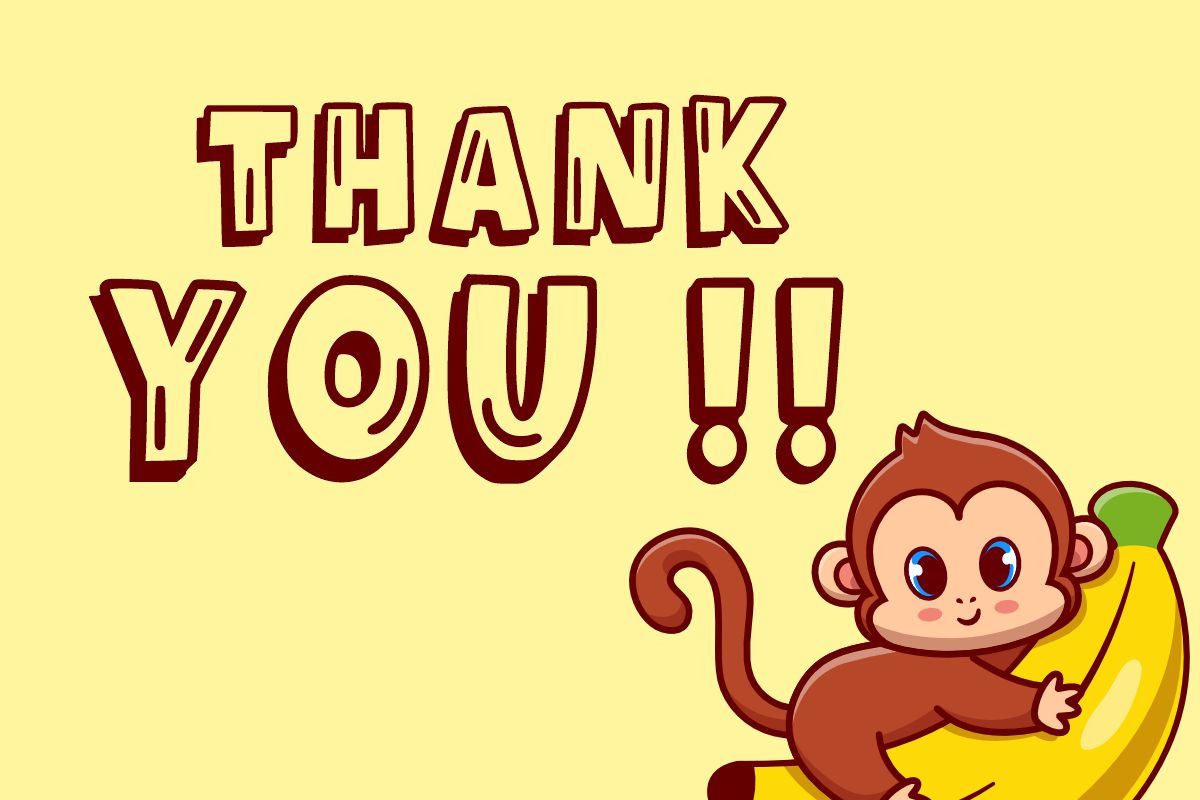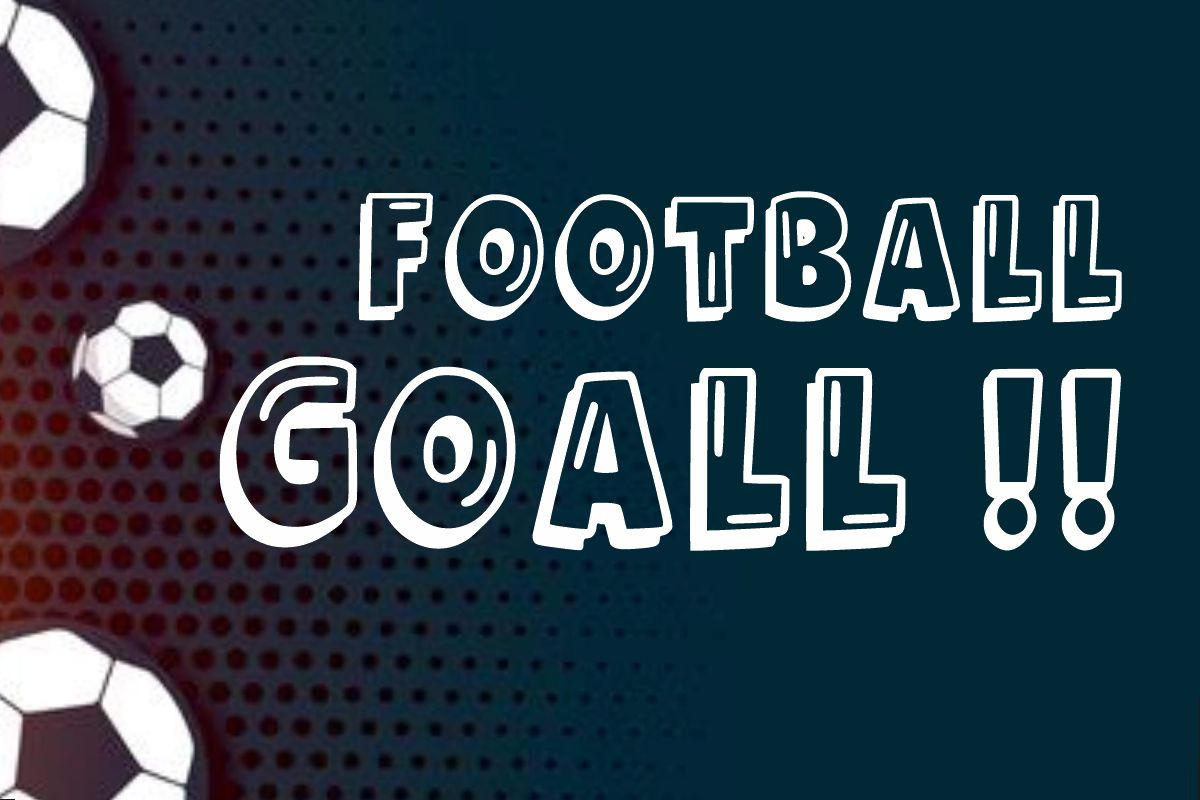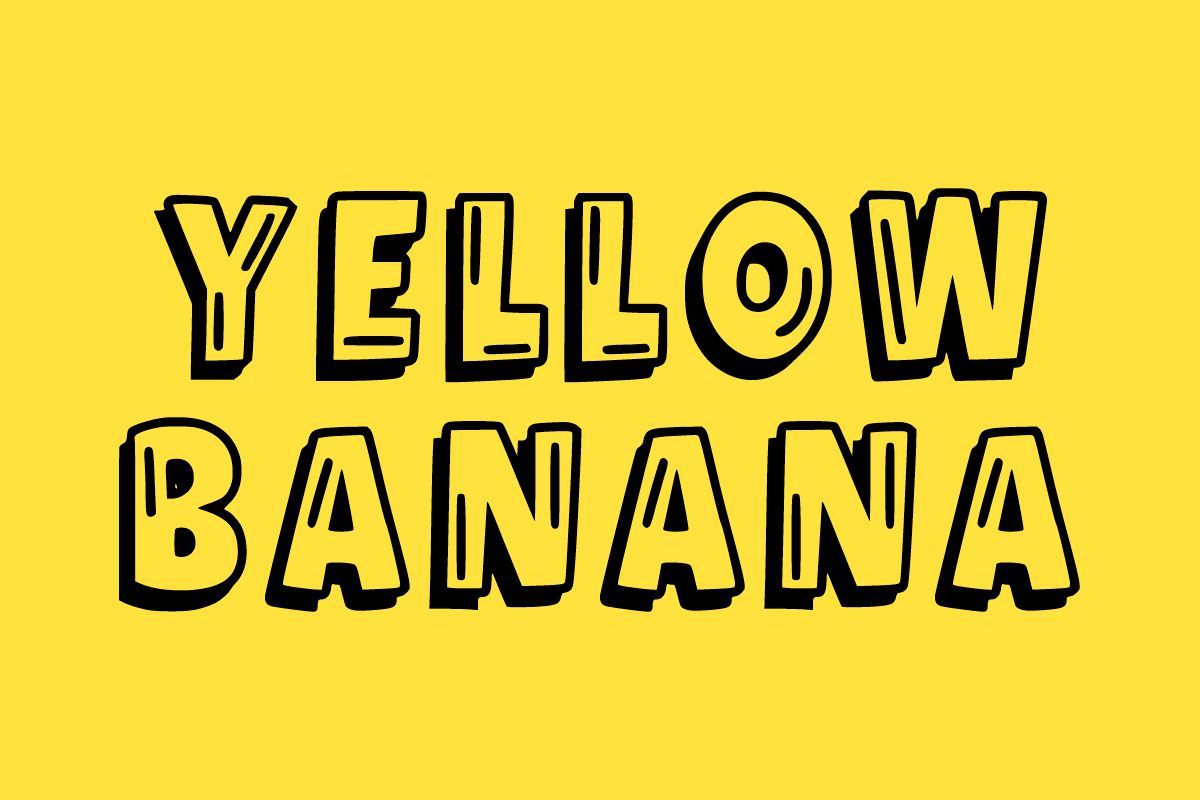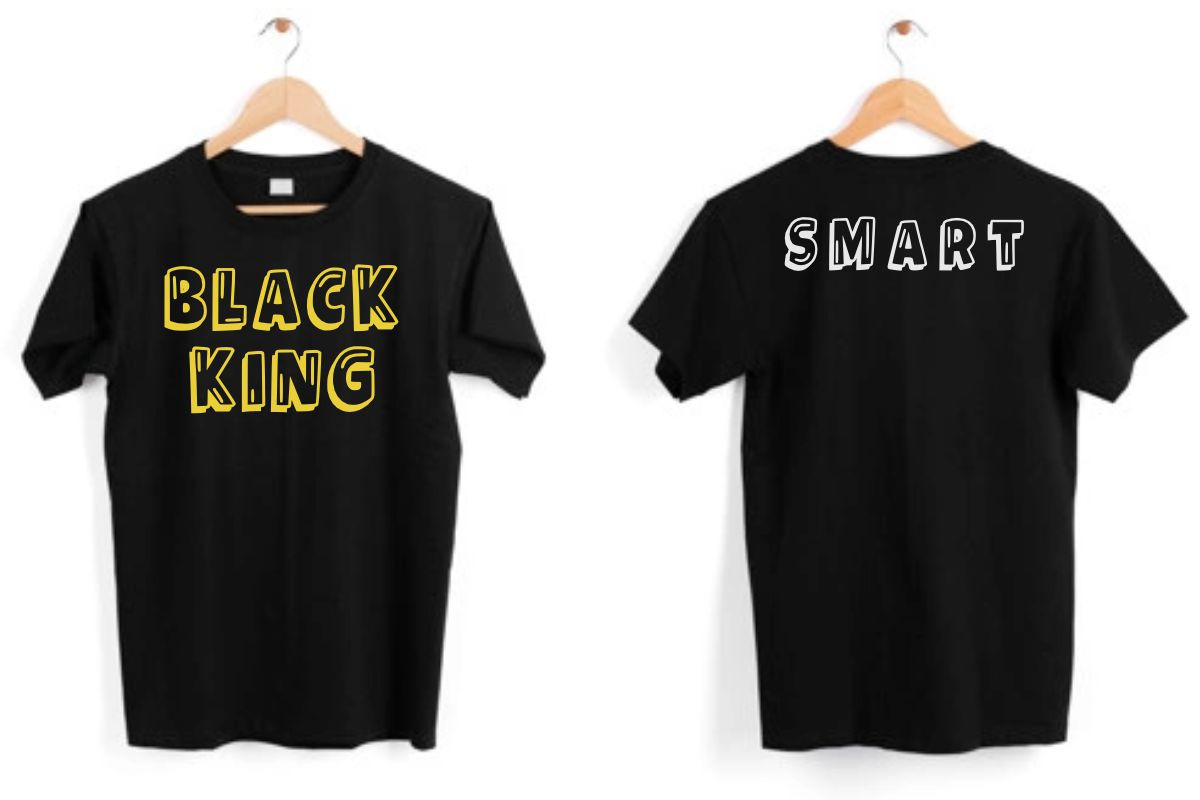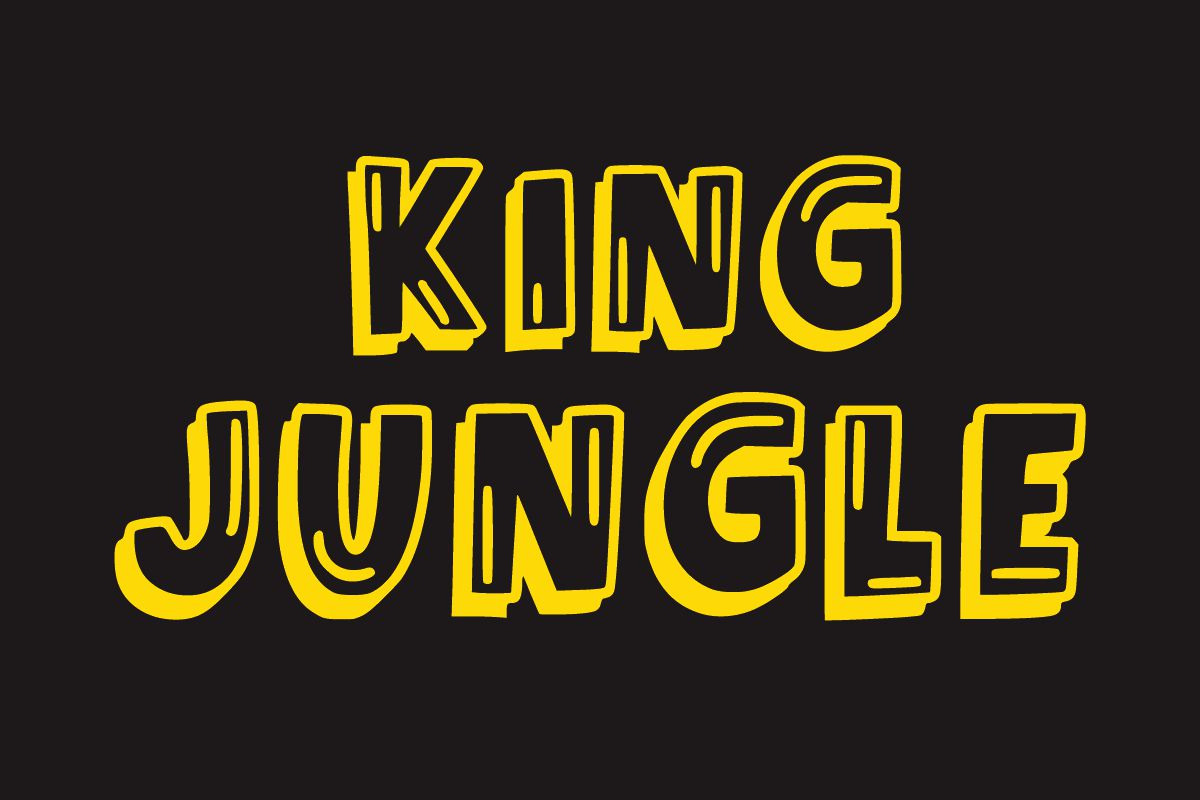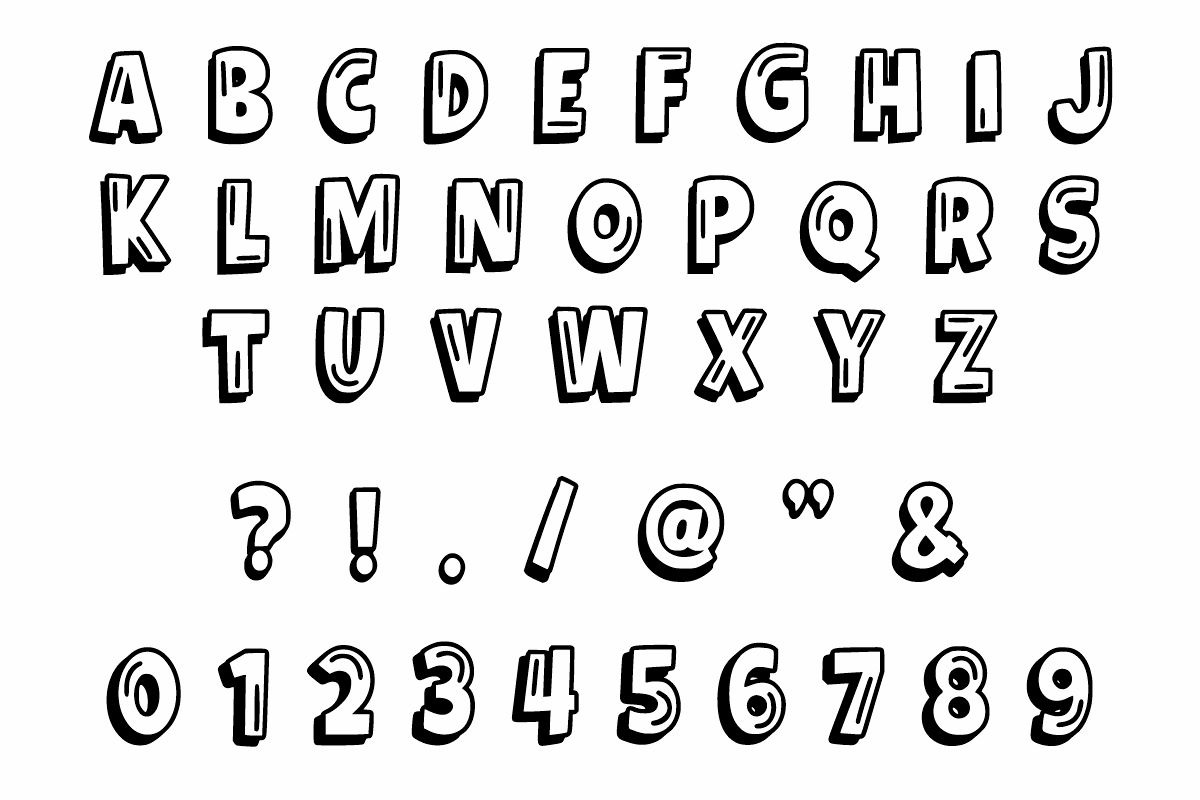
The Monkey
The Monkey is a cool, bold, and thick-lettered display font. Its informal style and casual vibe make it a perfect go-to choice for each of your creations that requires a relaxed touch. It is suitable for any product packaging, invitations, quotes, t-shirts, labels, posters, logos, and everything you wish to develop